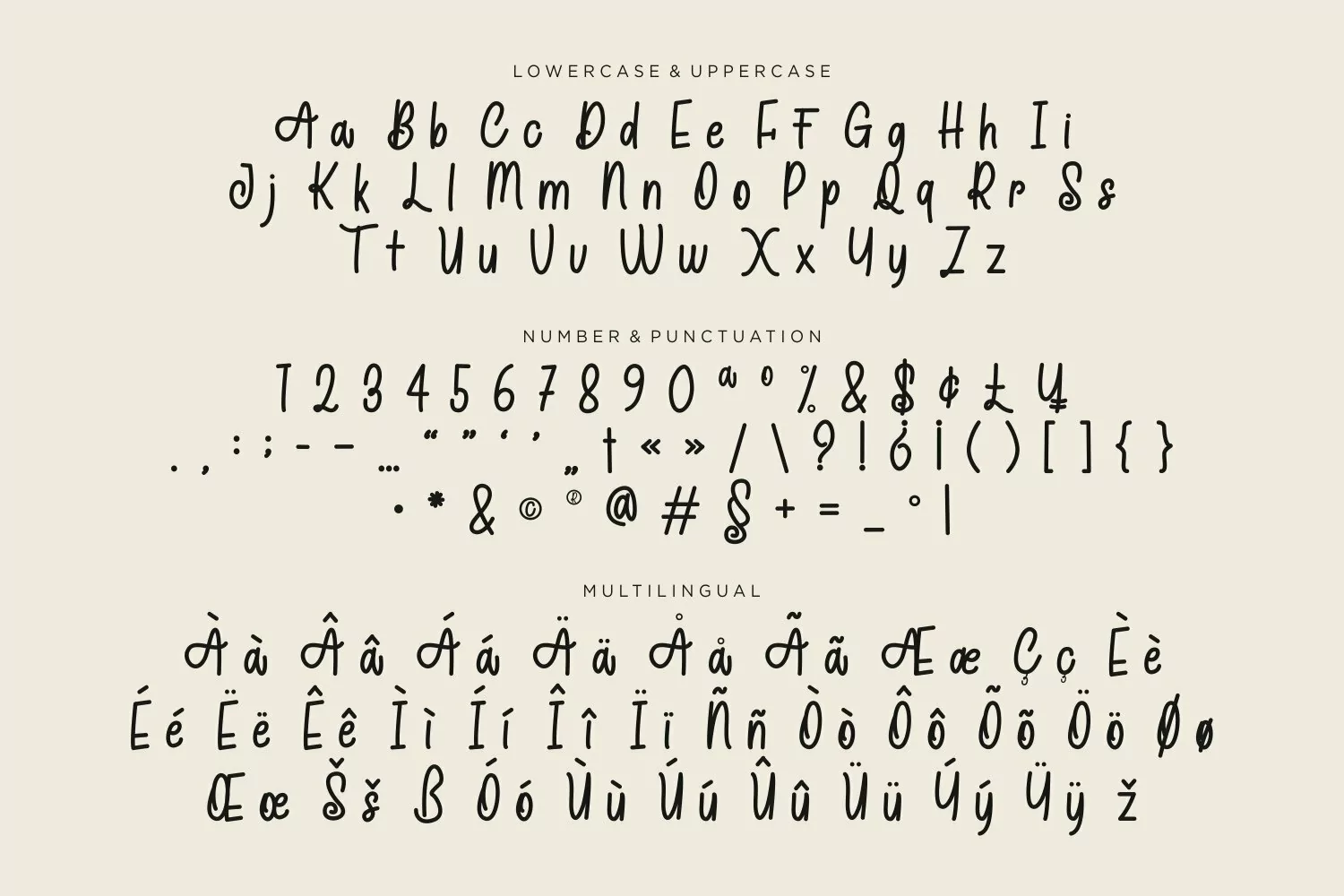
Ravely is a beauty handwritten display typeface with lovely themes. It matches applies in some designs such as the logotype, brand, packaging, quotes, kids poster, baby t-shirt, children book, birthday invitation and more custom design. The features uppercase, lowercase, numeral, punctuation & symbol, multilingual support, PUA encoded (fully accessible without additional design software).